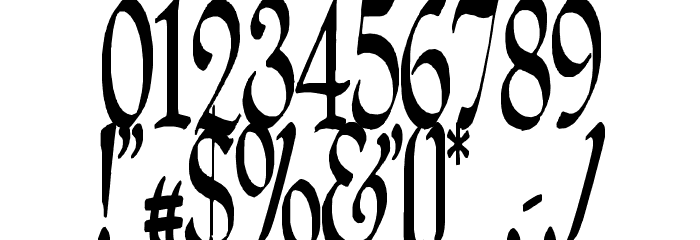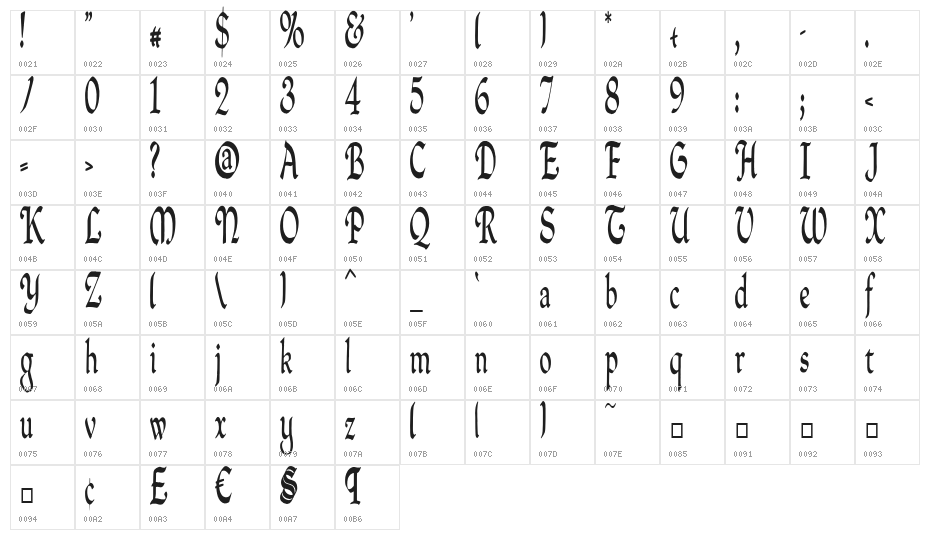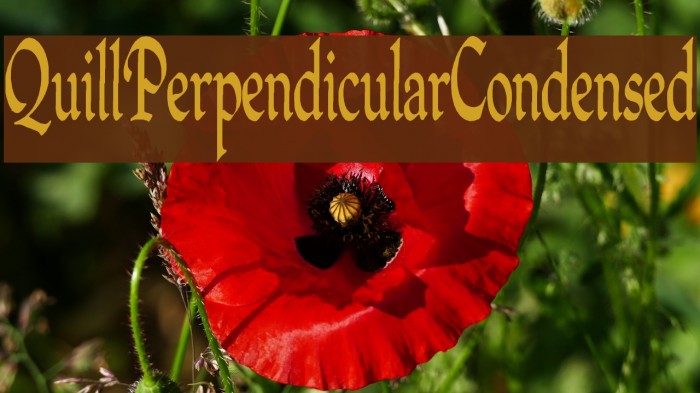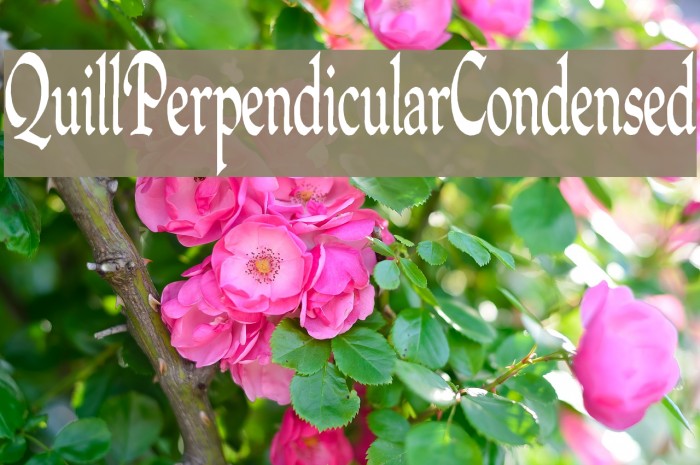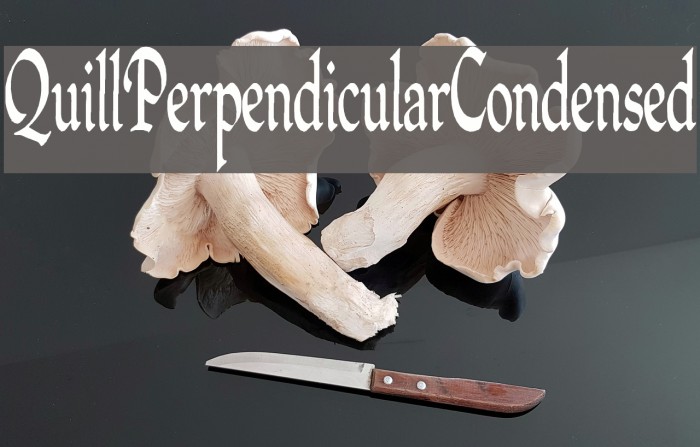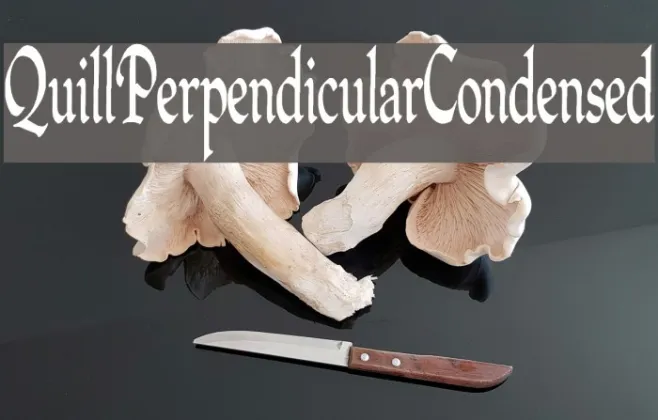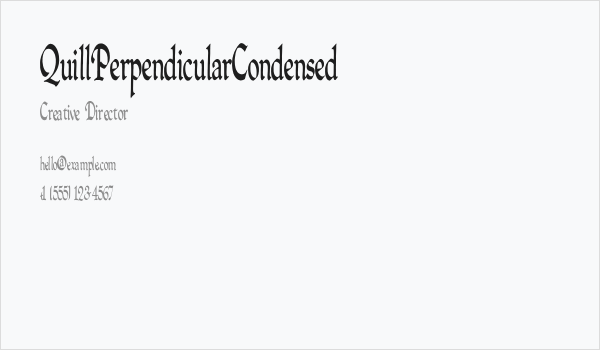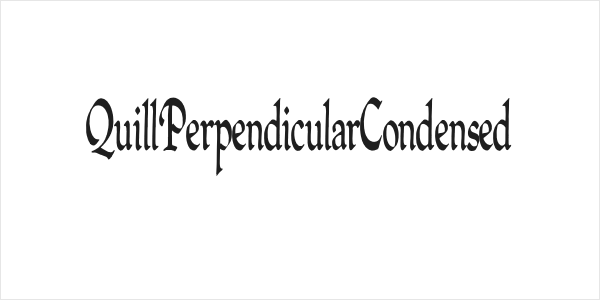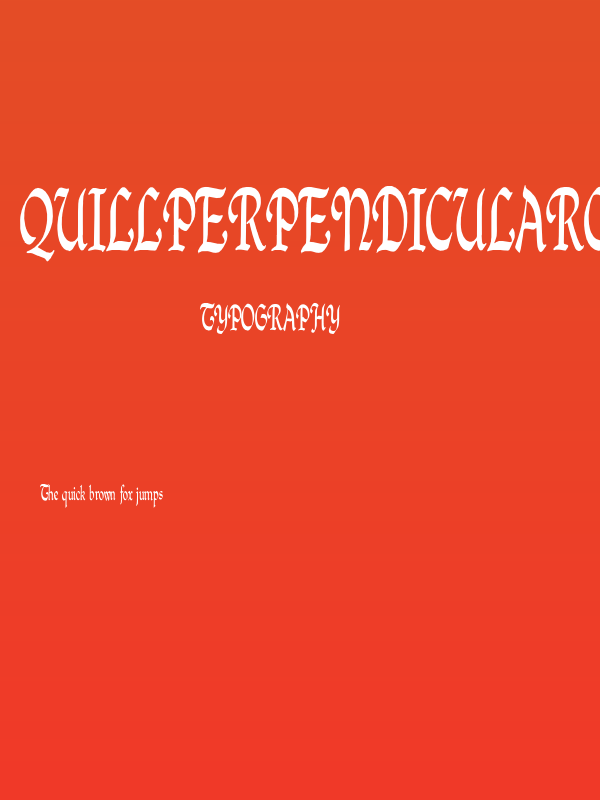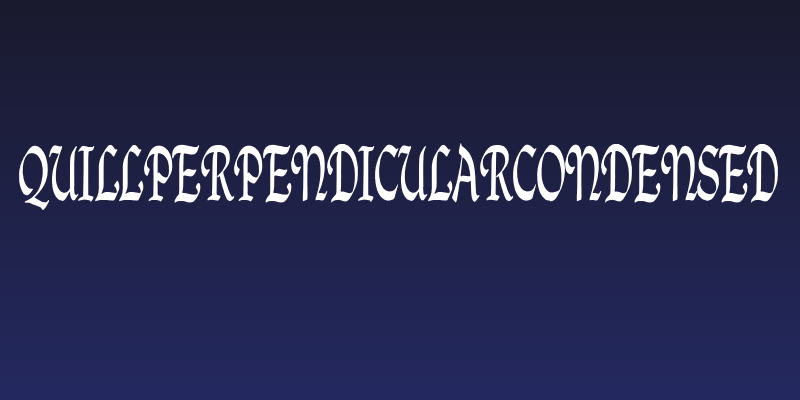
QuillPerpendicularCondensed Font
QuillPerpendicularCondensed Description
This font features a unique blend of traditional and modern elements, characterized by its sharp, angular serifs and condensed letterforms. The uppercase letters have a strong presence with their tall, narrow shapes, while the lowercase letters maintain a consistent style that complements the uppercase. The numerals are distinct and easily readable, with a slight flair that adds to the overall aesthetic. Special characters are designed with the same attention to detail, ensuring a cohesive look across all glyphs. The font's high contrast between thick and thin strokes gives it a dynamic and elegant appearance, making it suitable for a variety of design applications.